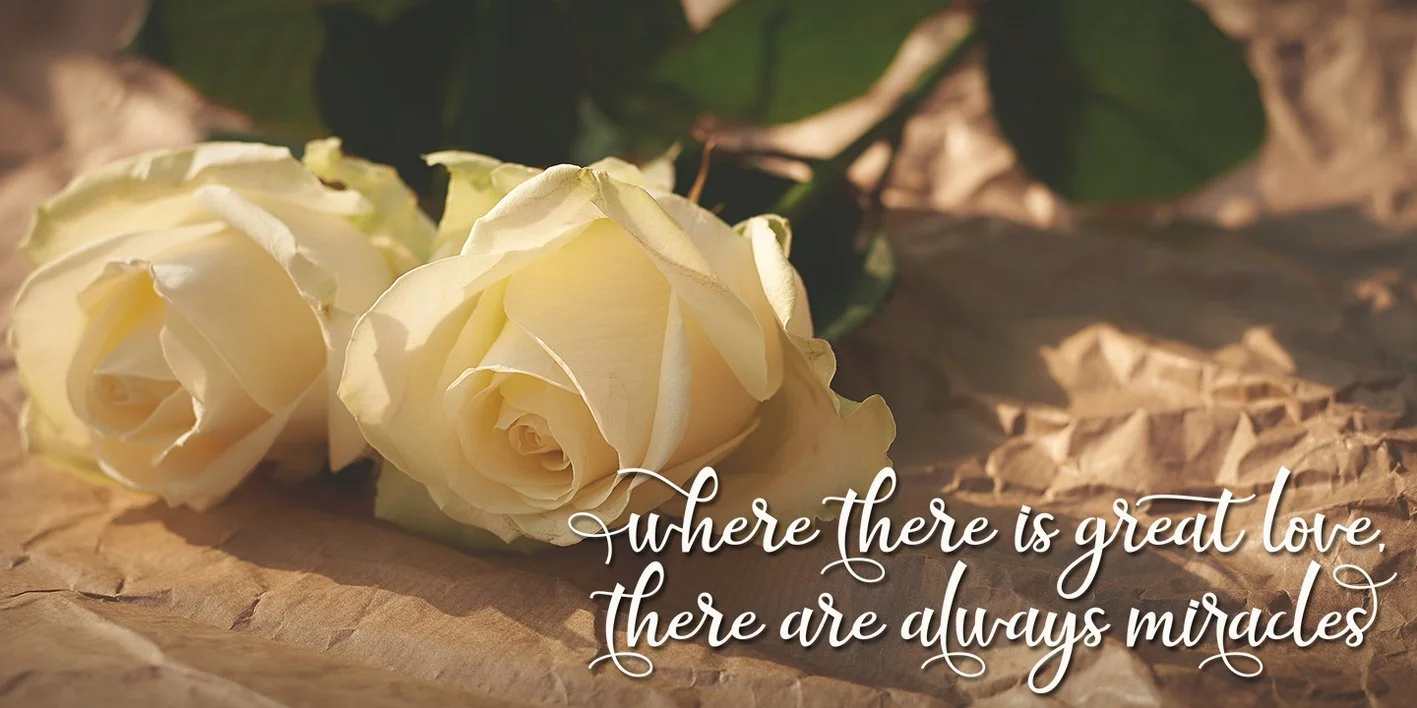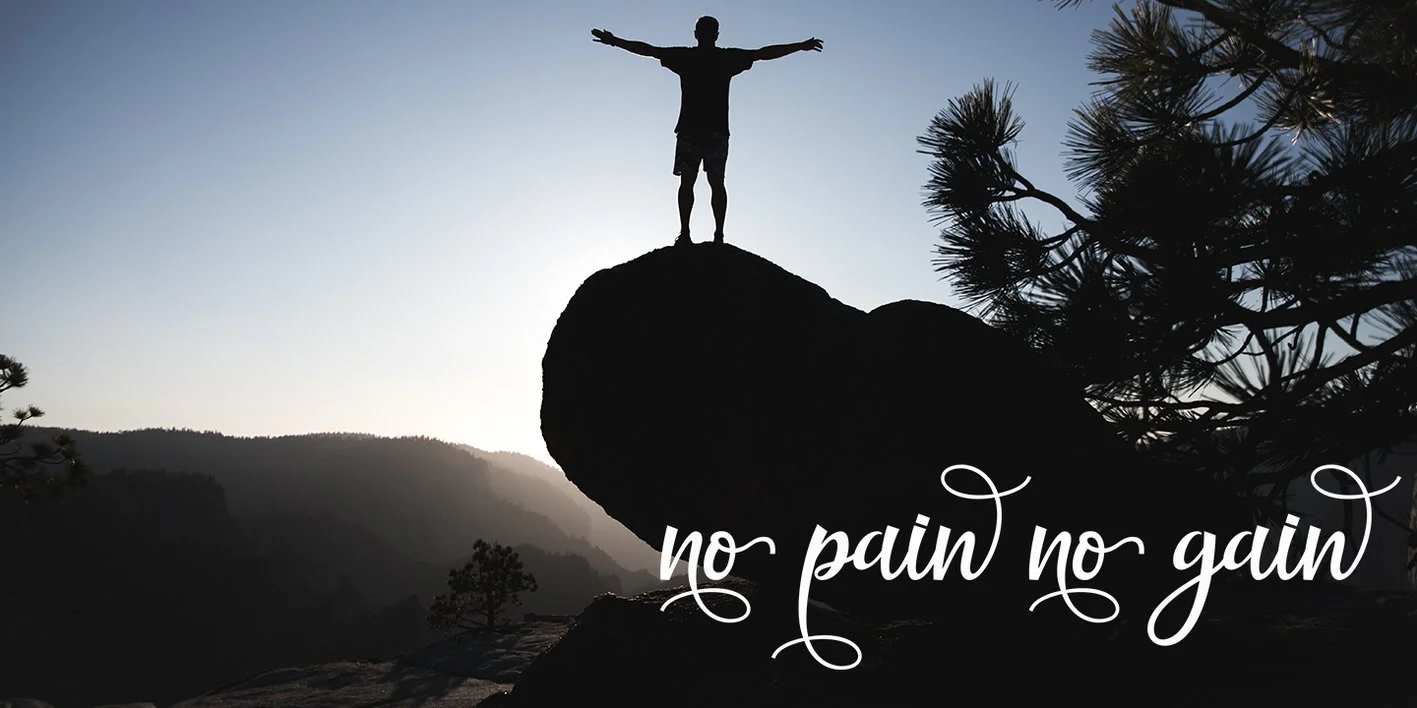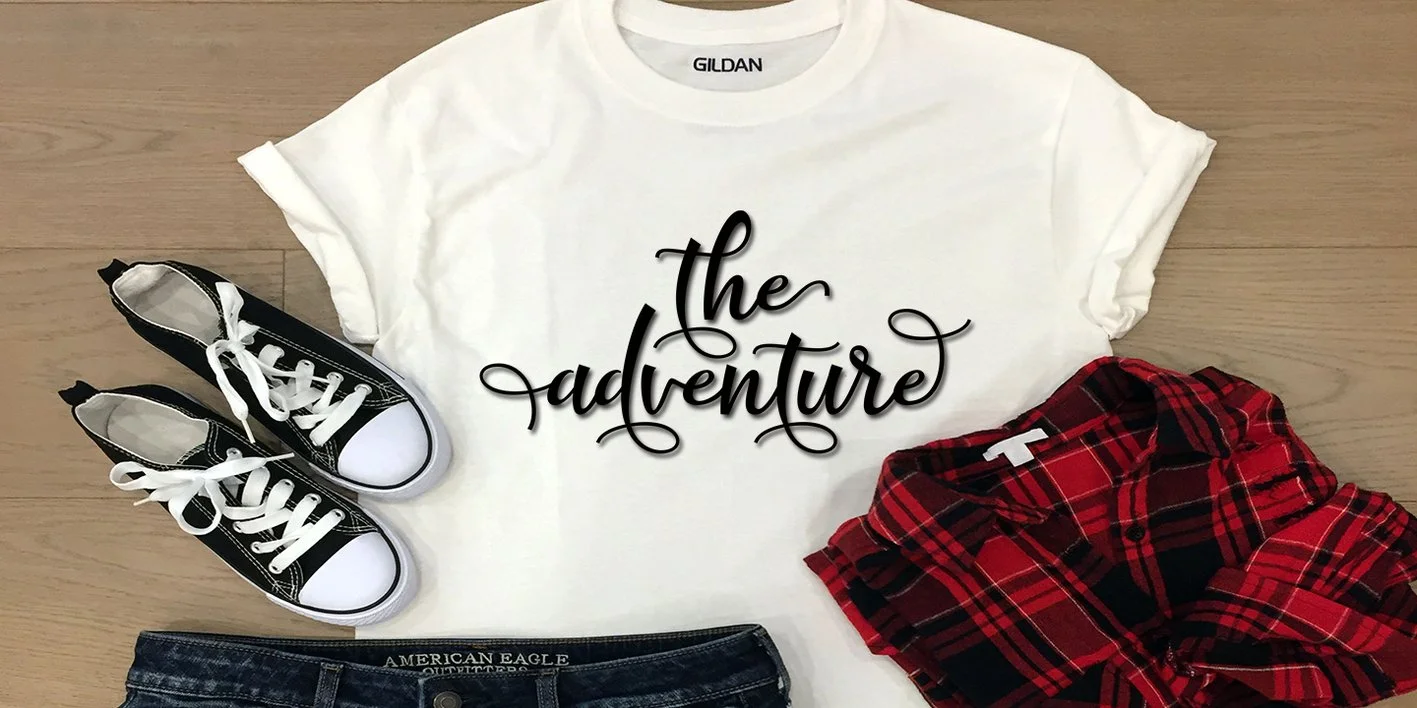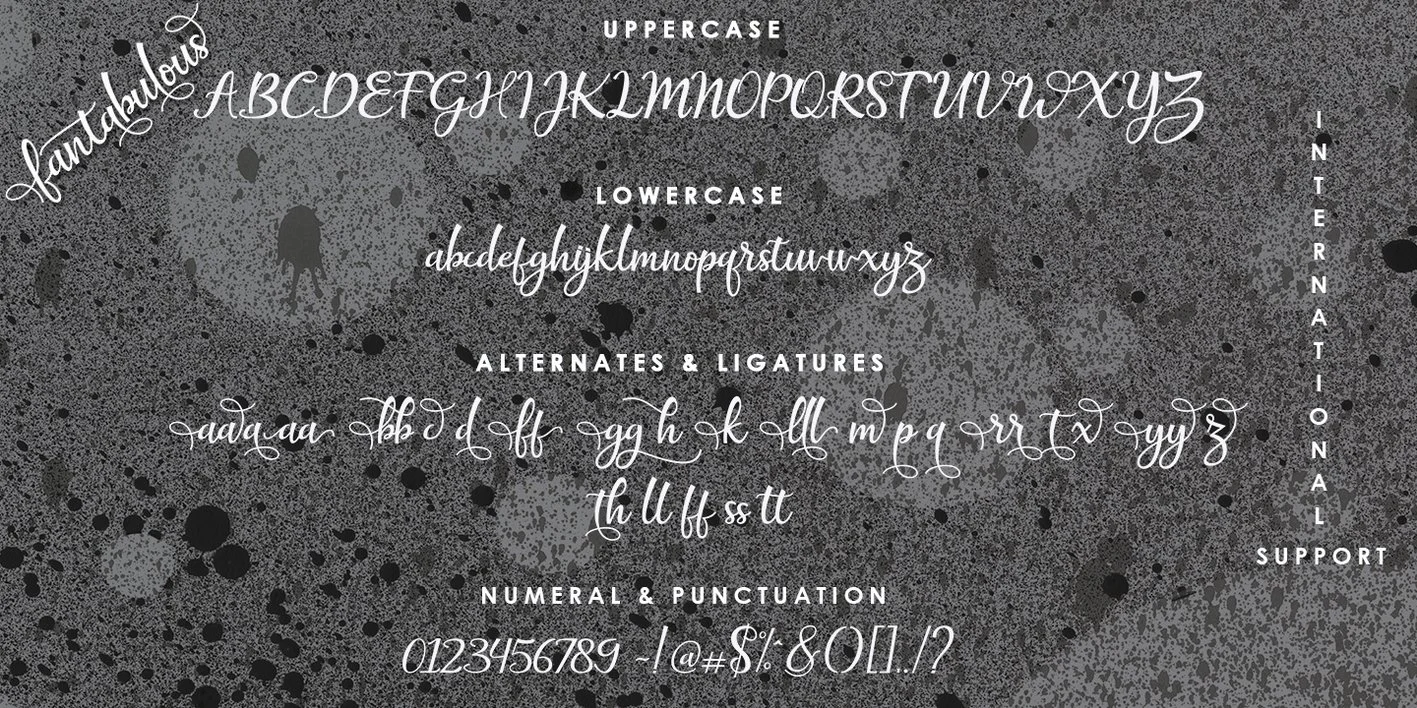
Fantabulous Script Font
Typography shapes perception at a subconscious level. Fantabulous Script leverages the kind of restraint that lets content lead to make every composition feel considered. The typeface brings an elegant, calligraphic sensibility to a broad range of creative disciplines, with versatility across print and screen contexts that holds up whether the work is print-first or screen-first.
In practice, Fantabulous Script proves particularly effective for annual reports, fashion editorials, packaging design, wedding invitations, event signage. Designers reaching for it find that the type decisions feel resolved rather than laboured — a useful quality when client timelines are tight.
The range of applications extends to social media graphics, bridal materials, web design, signage systems. That breadth is deliberate: the proportions and spacing were stress-tested across a wide range of mock briefs before the typeface was finalised.
Pairing Fantabulous Script with a contrasting serif or a neutral grotesque gives mixed-format layouts a clear visual grammar without requiring constant size adjustments to establish hierarchy.
UX designers establishing typographic systems for digital products find Fantabulous Script a reliable choice for projects that demand both personality and restraint. The design avoids the self-conscious quirkiness that dates quickly, settling instead for considered distinctiveness that holds up over time.